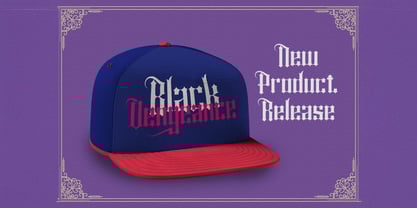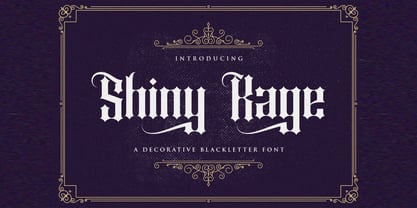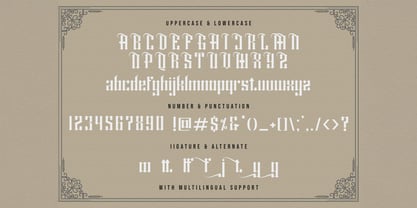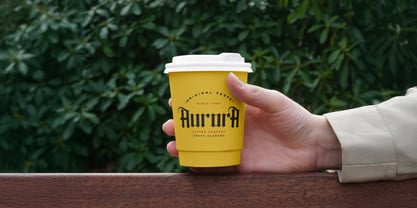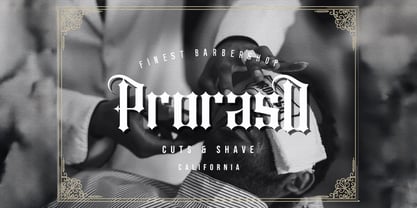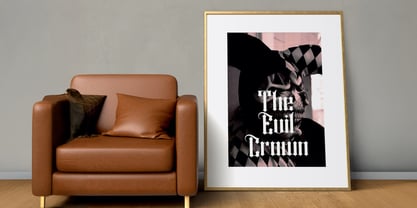
The Shiny kage Font Family was designed by Virgiawan Listanto and published by Stringlabs Creative Studio. Shiny kage contains 1 styles.
Shiny Kage is a bold blackletter font that blends dark gothic vibes with a sleek, modern twist. Featuring sharp angles, dramatic strokes, and a touch of urban flair, it’s perfect for projects that need to look fierce, stylish, and unforgettable. Whether you're designing in the shadows or the spotlight, this font was made to stand out.